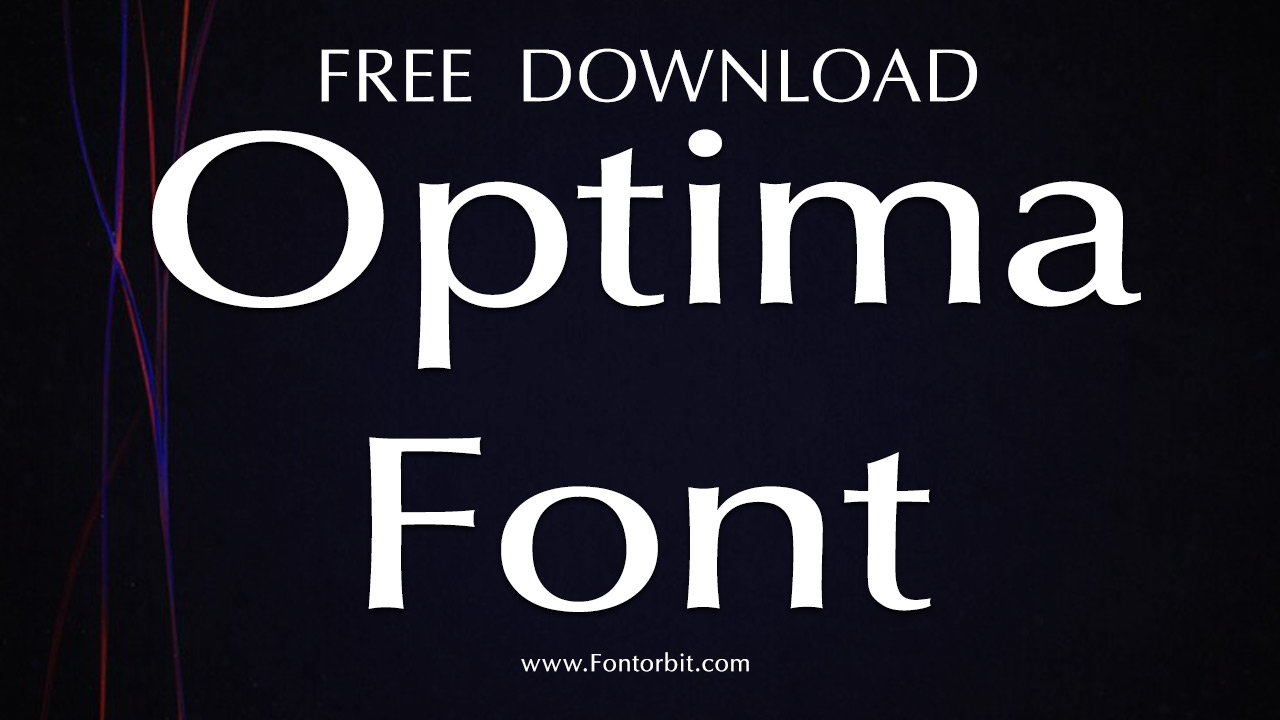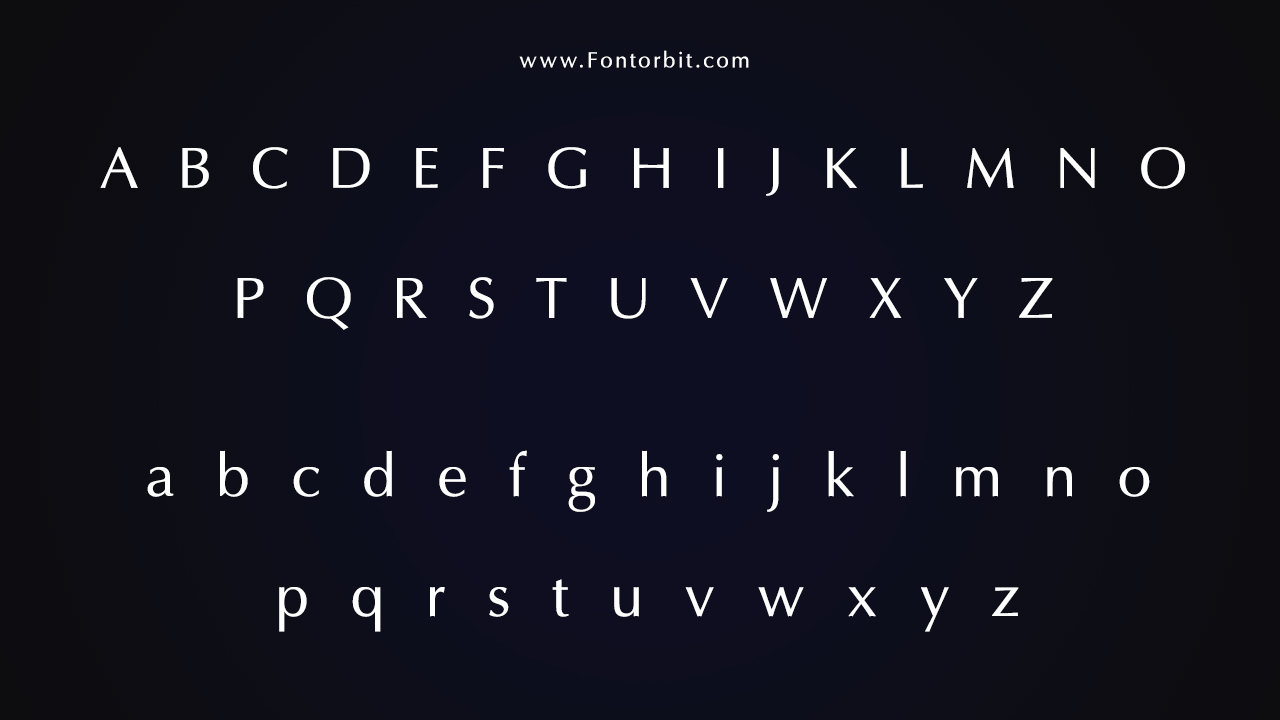
Optima, a humanist sans-serif typeface designed by Hermann Zapf and released by D. Stempel AG in 1958, blends modern simplicity with classical influences.
Though a sans-serif, Optima features subtle terminal flares reminiscent of glyphic serifs, inspired by Renaissance stone engravings Zapf saw in Florence. Versatile for both body text and titling, it was notably used in his book About Alphabets. Over time, Optima has expanded, reflecting Zapf’s ongoing commitment to its design.
The Optima Font Family Includes
Optima is renowned for its distinctive weights and styles, allowing designers flexibility in their work. The font family includes various weights such as Light, Regular, Medium, Bold, and Extra Black, each with corresponding italic styles.
Its nuanced design, featuring a blend of clean lines and gentle curves, ensures that Optima remains legible and elegant in both large and small sizes. Additionally, its wide range of glyphs supports a broad array of languages, making it a versatile choice for international design applications.
The family includes:
- Optima
- Optima Italic
- Optima Medium
- Optima Bold
Each style contains a comprehensive set of characters, including uppercase and lowercase letters, numerals, punctuation, and special symbols. This variety ensures that designers can find the perfect weight and style for their specific needs.
Design Contexts To Use This Font
Optima’s clean yet graceful appearance makes it ideal for a variety of design contexts, including:
- Logos and Titles
- Memorials and Monuments
- Corporate Branding
- Print and Editorial Design
- Formal Invitations
- Architectural Signage
Its combination of simplicity and sophistication allows Optima to shine in both formal and casual design settings. Its humanist qualities bring warmth and personality to corporate branding, while its refined structure makes it suitable for elegant wedding invitations or product labels.
Optima remains a favorite among designers for its timeless elegance and versatility. Its delicate balance between sans-serif simplicity and classical influences makes it suitable for a wide range of applications, from branding to editorial design.
By using Optima, you can achieve a design that conveys both sophistication and accessibility. Whether designing a book cover or corporate logo, Optima is a dependable choice for conveying elegance and modernity.
5.What Are The Differences Between Optima And Other Similar Fonts?
Unlike many sans-serif fonts, Optima features subtle curves at the terminals, which resemble glyphic serifs. This gives it a softer, more organic appearance compared to geometric sans-serifs like Futura or Helvetica.